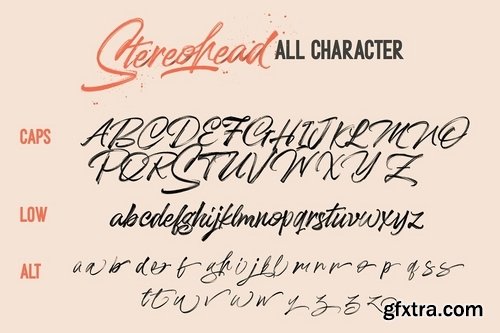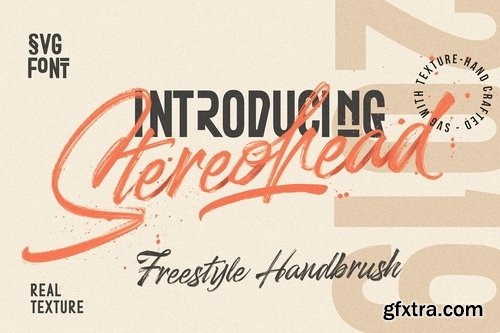
DETAILS Stereohead Brush is Stylist Brush SVG font with a real hand-painted wet brush look. Ideal for signature, logos, handwritten quotes, product packaging, header, poster, merchandise, social media & greeting cards.
Stereohead SVG Font • Use this version of the script font to re-create stunning hand-lettering with high-definition brush textures, completely built in to the font as a transparency. Requires Photoshop CC 2017 or Illustrator CC 2018 (or newer) to use. File Include : Stereohead SVG.OTF Stereohead Vector Brush .OTF & TTF Metafora Sans Black .OTF To enable the OpenType Stylistic alternates, you need a program that supports OpenType features such as Adobe Illustrator CS, Adobe Indesign & CorelDraw X6-X7. There are additional ways to access alternates, using Character Map (Windows), Nexus Font (Windows), Font Book (Mac) or a software program such as PopChar (for Windows and Mac). RAR PASS: STEREO78978UTFR5_GFXTRA